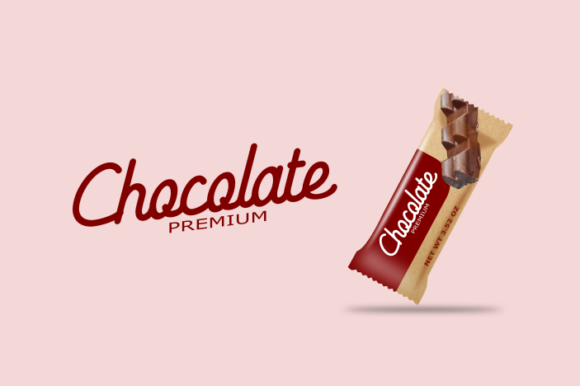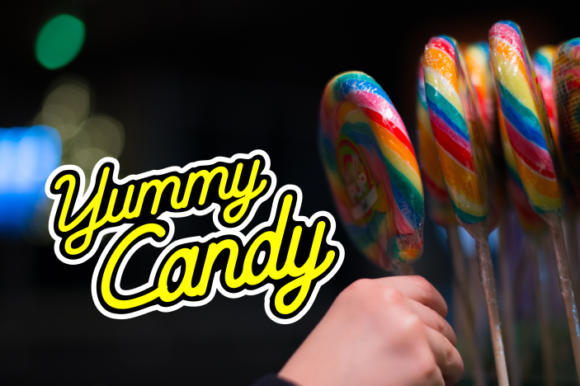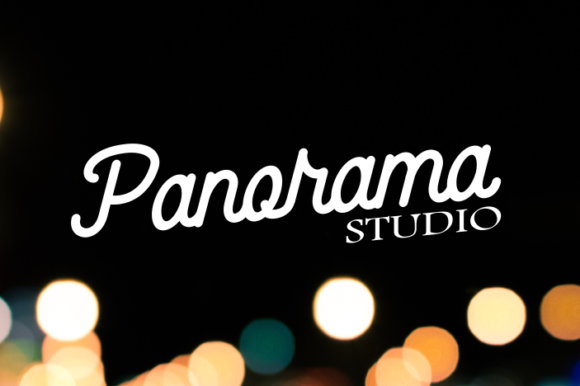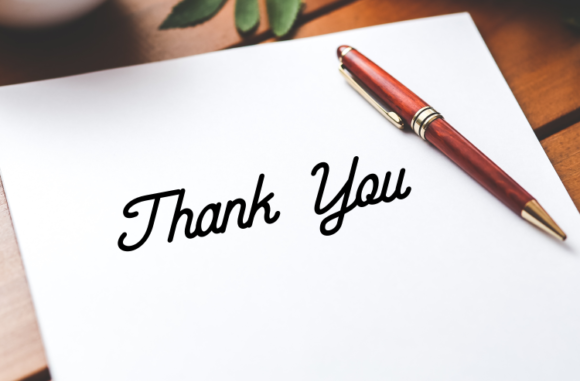
Audy Font: Elevate Your Creativity with Elegance
In the world of typography, a font can make all the difference in transforming a simple design into a masterpiece. For those seeking a touch of elegance and magic in their creative projects, the Audy Font is an exceptional choice. This beautifully crafted handwritten font is designed to bring a sense of sophistication and charm to any design, making it perfect for a wide range of applications, from Instagram posts to DIY projects.
The Charm of Audy Font
Audy is not just any font; it’s a carefully created, magical handwritten script that exudes elegance. Its unique characters are designed to add a personal touch to your designs, making them stand out in a crowded digital landscape. Whether you’re a designer looking for the perfect font for your next project or a crafter seeking a stylish script for your DIY endeavors, Audy Font is sure to impress.
One of the key benefits of the Audy Font is its versatility. This font is not limited to just one type of project. Its elegant and flowing script makes it suitable for a variety of uses, including:
- Instagram Graphics: Elevate your Instagram posts and stories with a touch of elegance. Audy Font is perfect for creating eye-catching quotes, announcements, and more that are sure to engage your audience.
- Calligraphy Scripts: For crafters and DIY enthusiasts, Audy Font offers a beautiful script that can be used for various projects, from handmade cards to decorative signs.
- Branding and Marketing Materials: Businesses can also benefit from using Audy Font in their branding and marketing materials. Its unique and elegant appearance can help create a memorable brand identity.
Why Choose Audy Font?
With so many fonts available, why should Audy Font be your choice? Here are a few reasons:
- Elegance: Audy Font brings a level of sophistication to your designs that is hard to achieve with standard fonts.
- Readability: Despite its elegant and cursive nature, Audy Font remains highly readable, making it suitable for both headings and body text.
- Uniqueness: In a world where many designs look similar, Audy Font helps you stand out with its distinctive and stylish script.
Tips for Using Audy Font
To get the most out of Audy Font, consider the following tips:
- Mix and Match: Don’t be afraid to combine Audy Font with other fonts to create visual interest. Pair it with a clean sans-serif for contrast.
- Play with Sizes: Use different sizes to create a hierarchy of information. Larger sizes are great for headings, while smaller sizes work well for body text.
- Experiment with Colors: While Audy Font looks great in black, experimenting with colors can add another layer of personality to your designs.
Audy Font is more than just a font; it’s a tool that can transform your creative ideas into true pieces of art. Its magical and elegant handwritten script makes it the perfect choice for designers and crafters looking to add a touch of sophistication to their projects. Whether you’re working on Instagram graphics, DIY projects, or professional branding materials, Audy Font is sure to elevate your designs to the next level. So, why settle for ordinary when you can create something extraordinary with Audy Font?